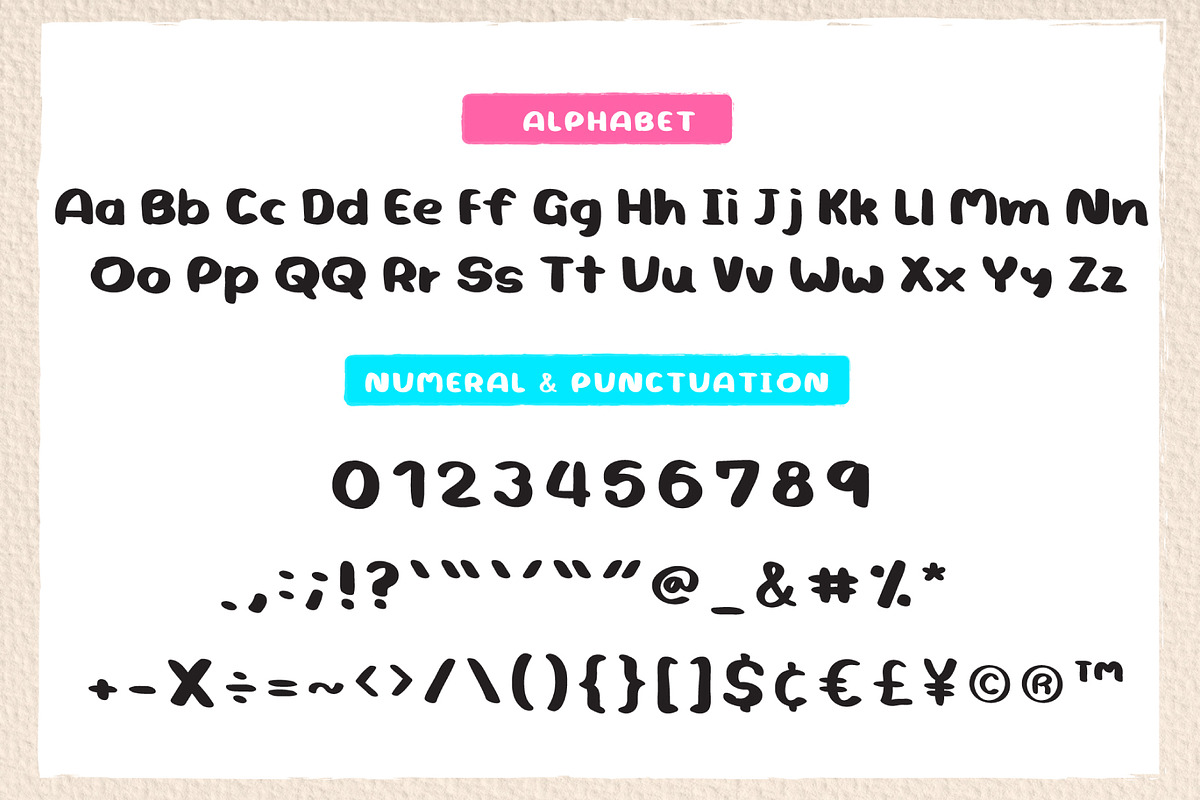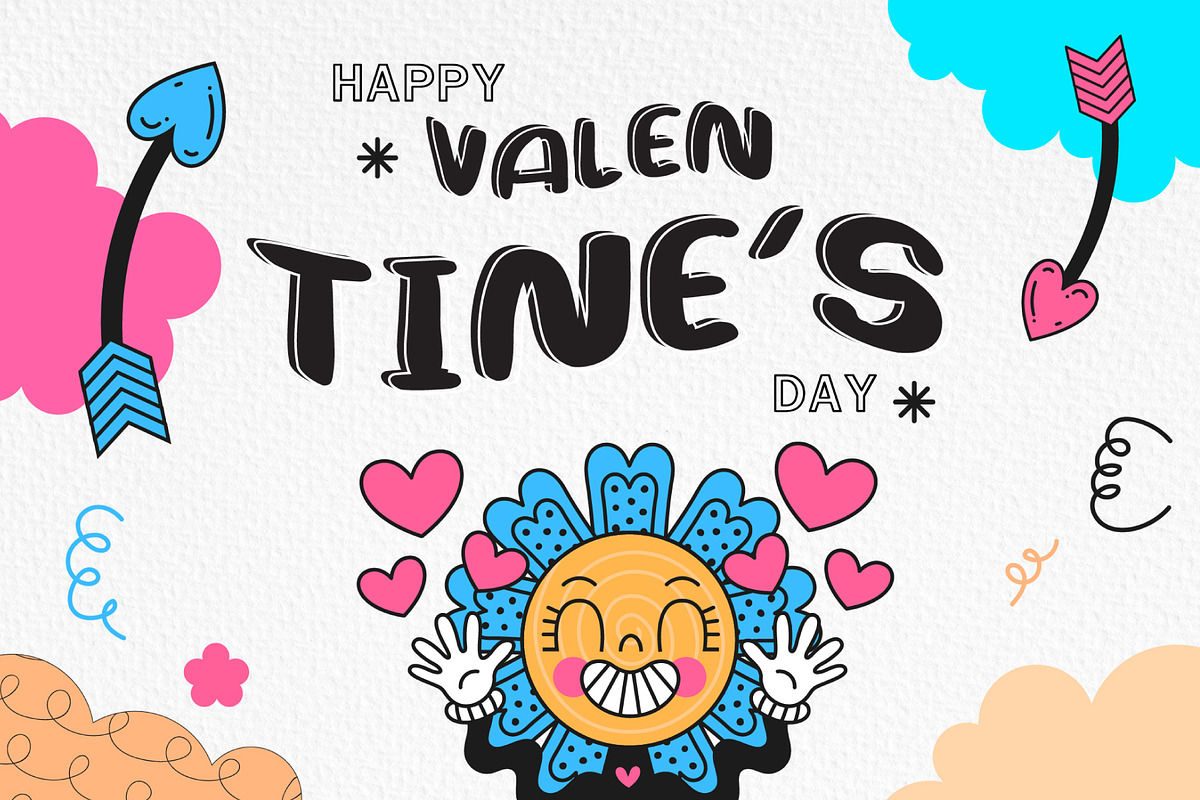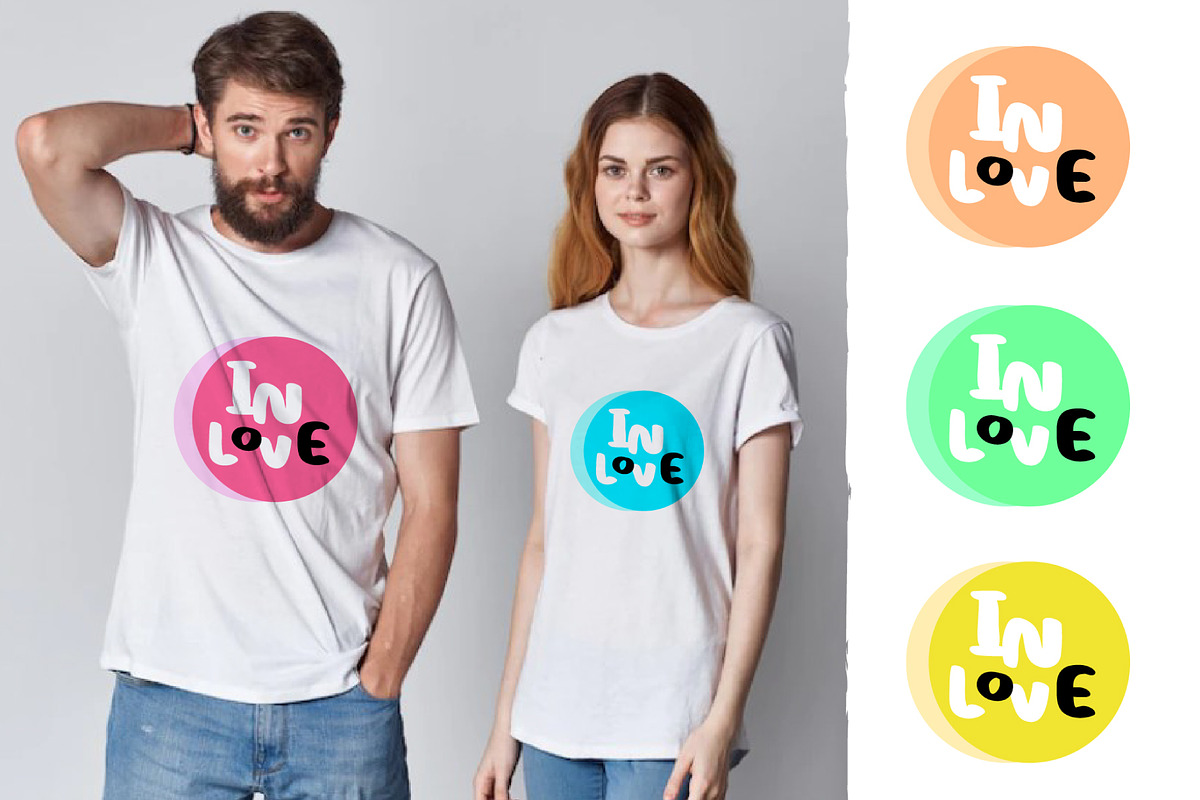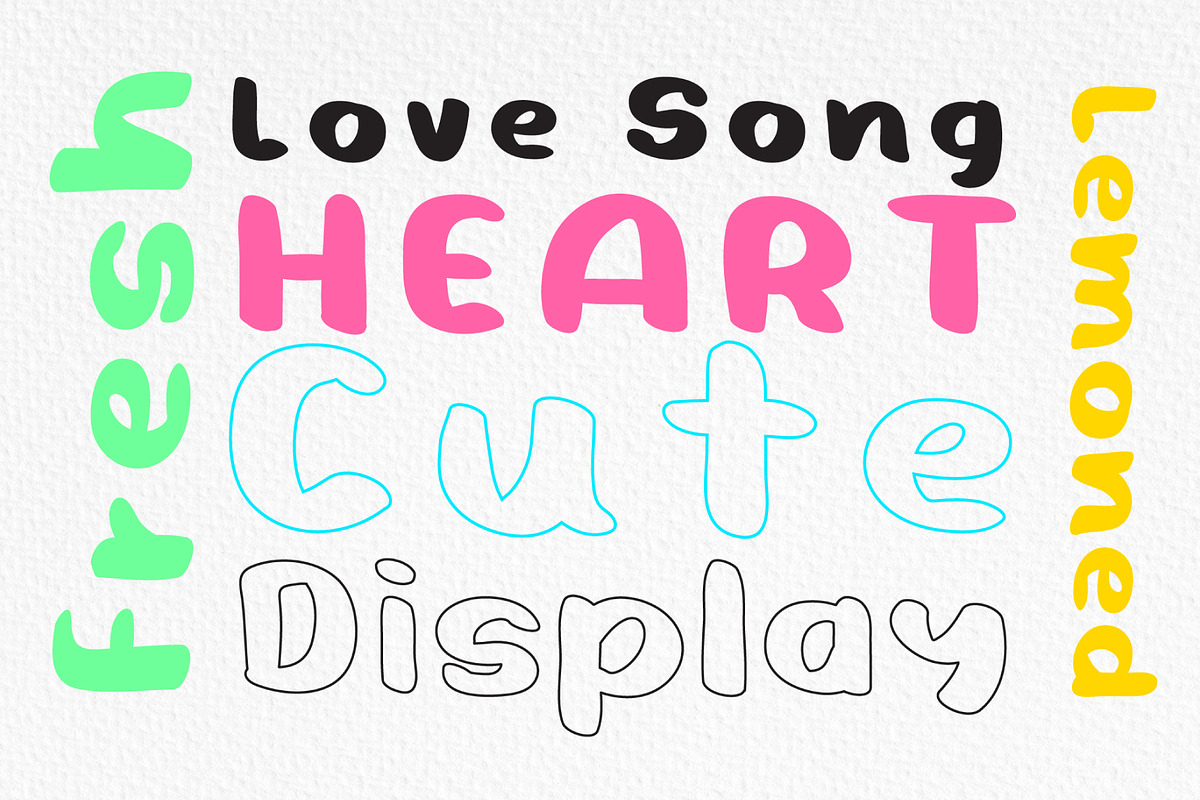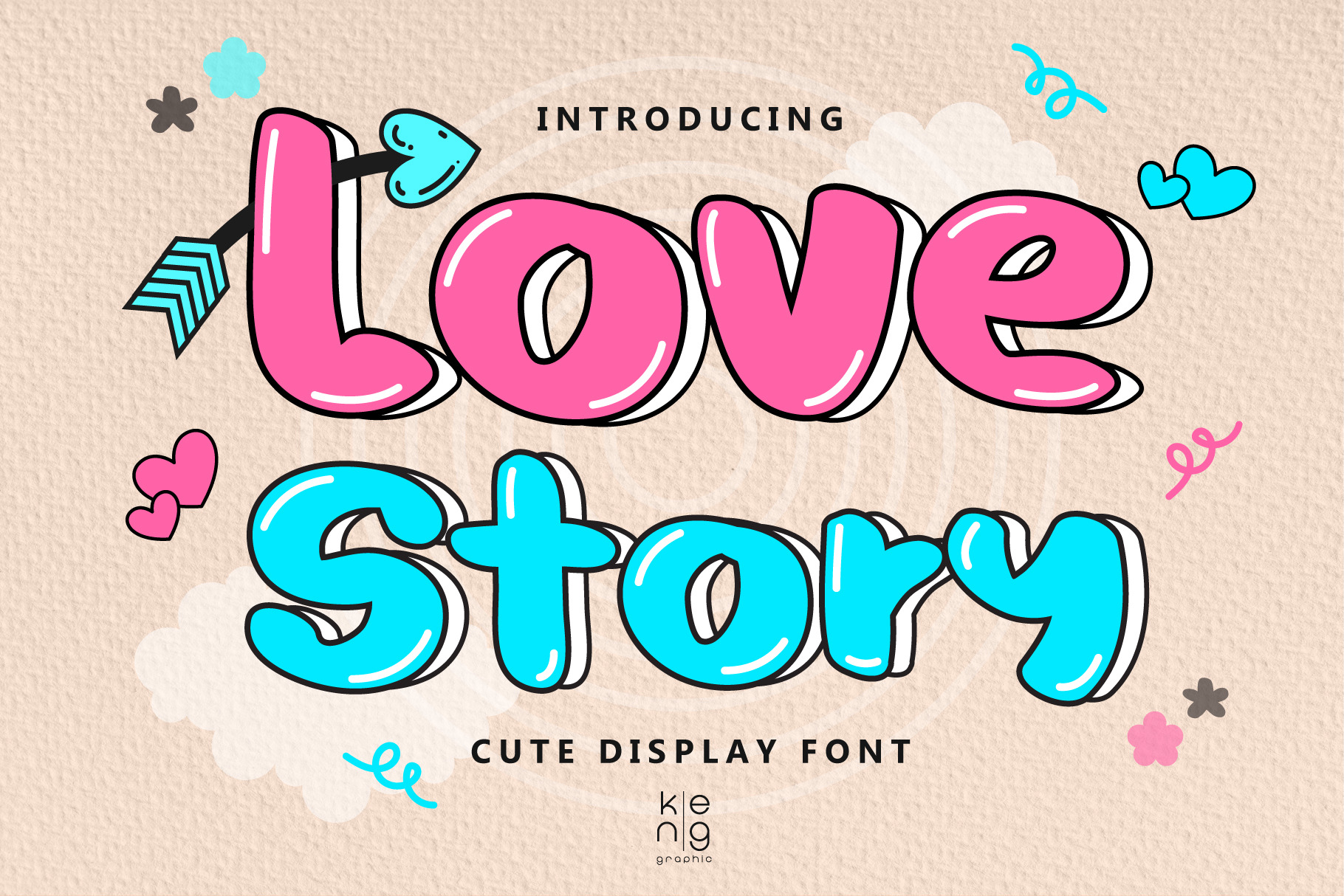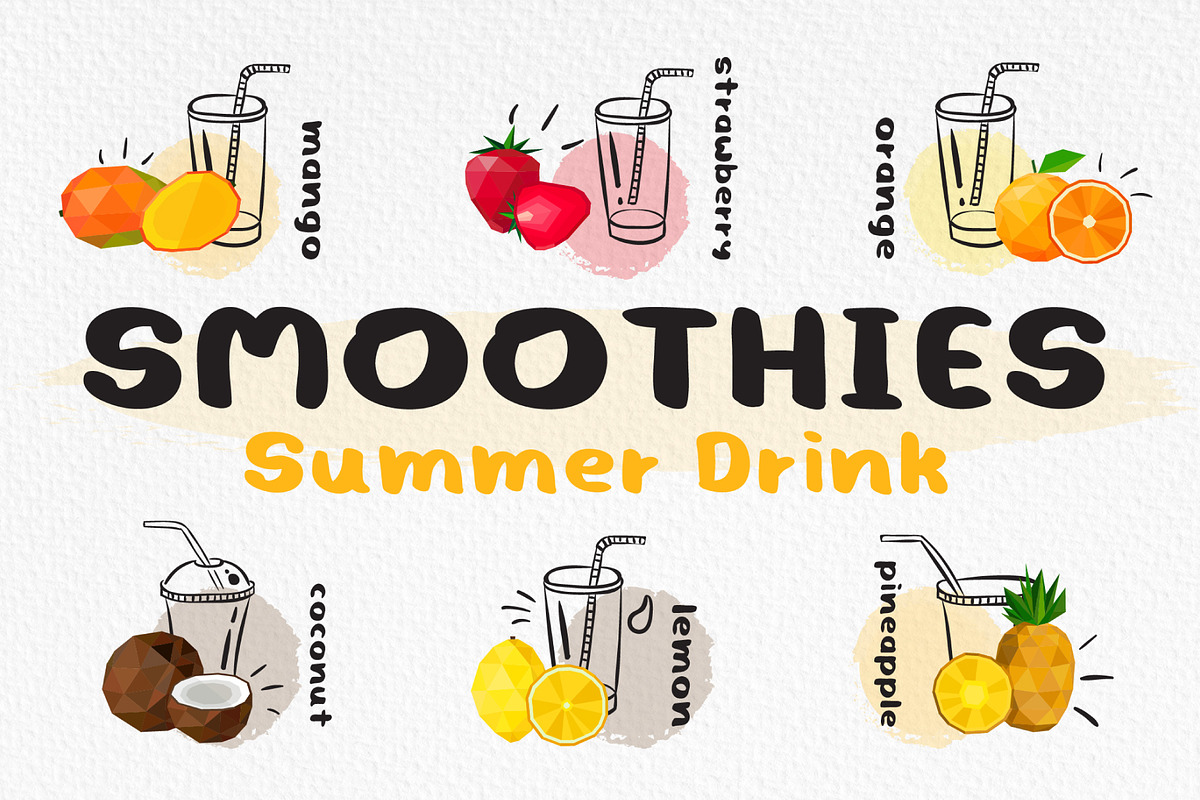
Love Story Font
Love Story is a cool cartoon-style display font with a great punch. Everything written in this font will be instantly recognizable and will attract attention. It will work great for comic book style, online games, cards, love shirts, posters, movie titles, eye-catching social media posts, or anything that requires youthfulness and courage.